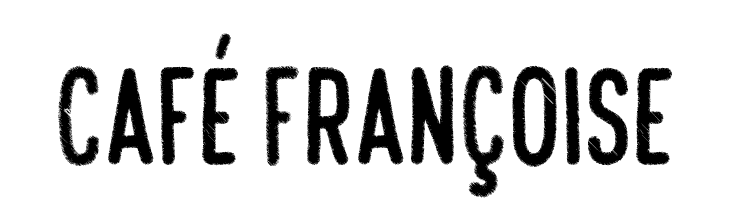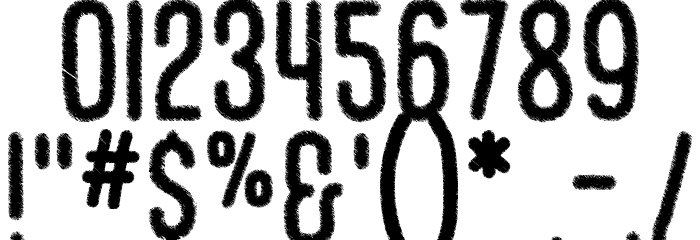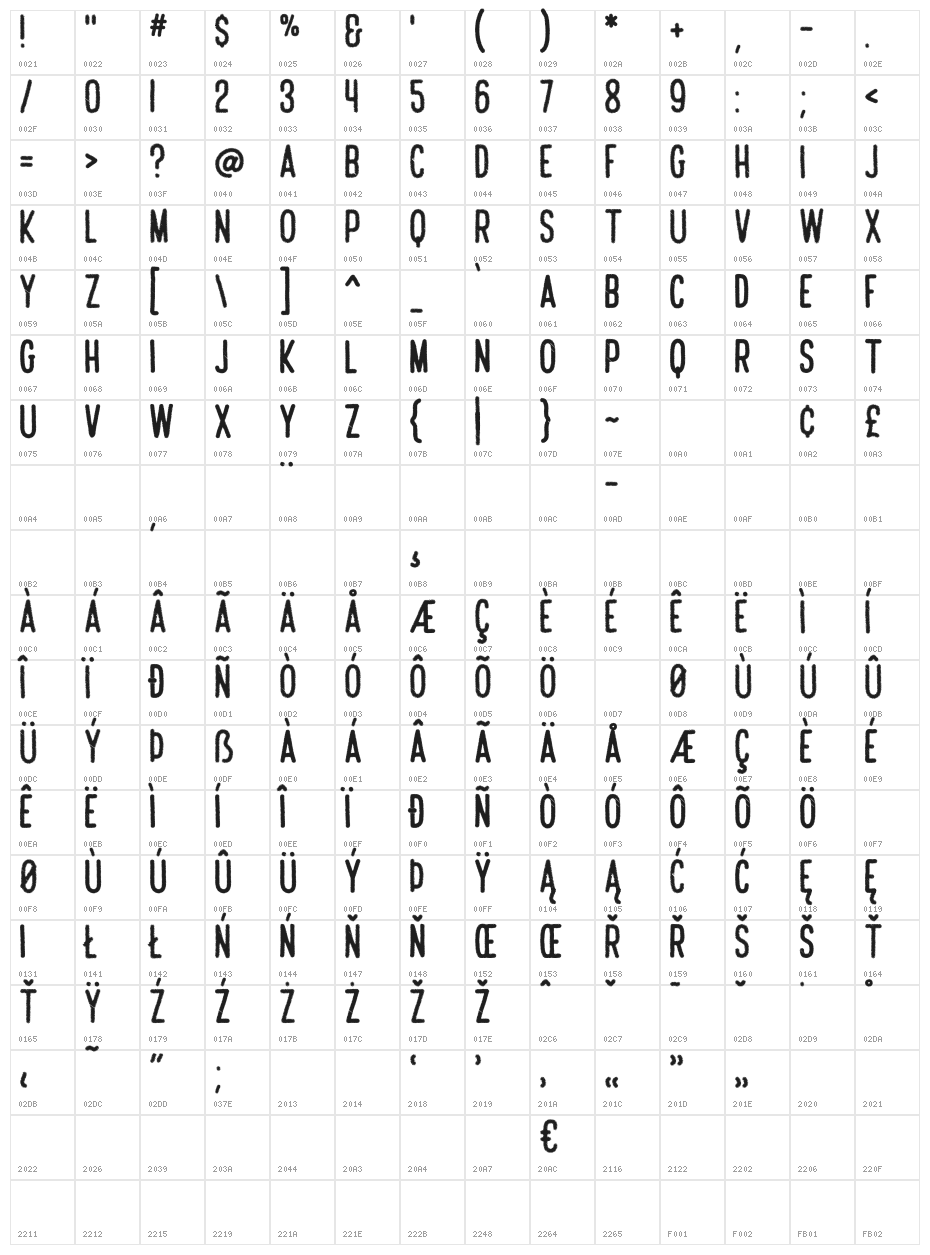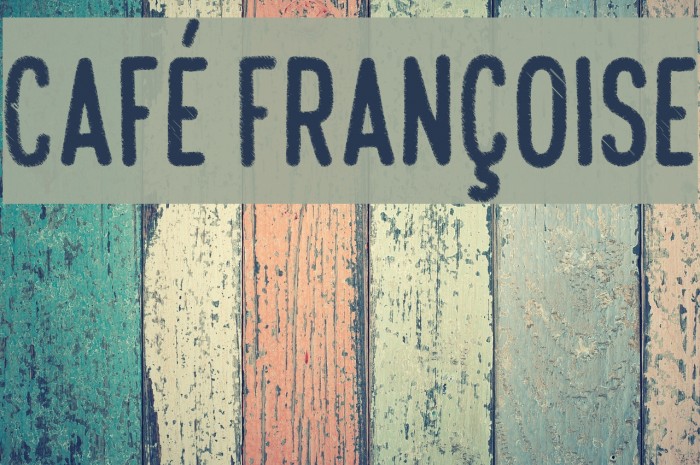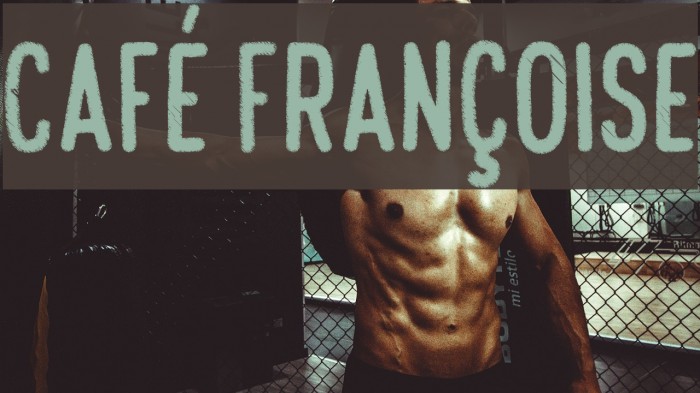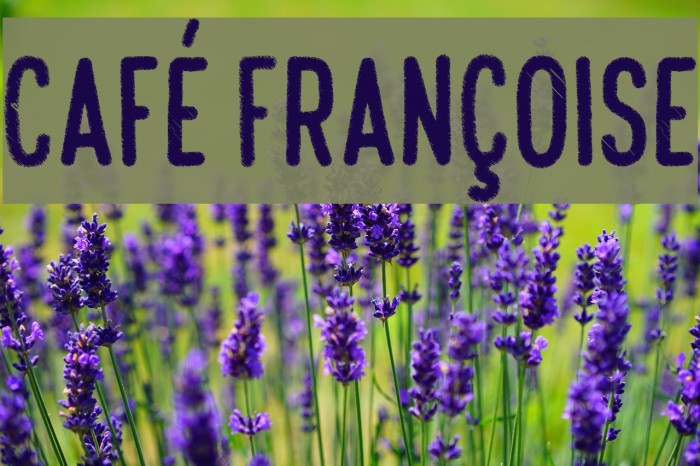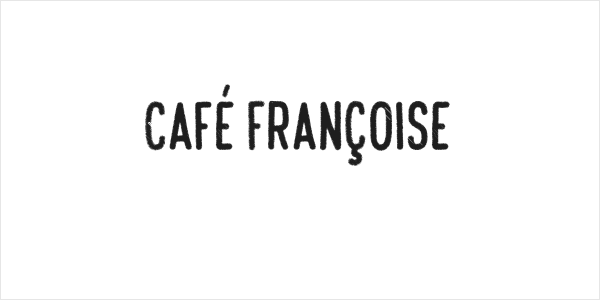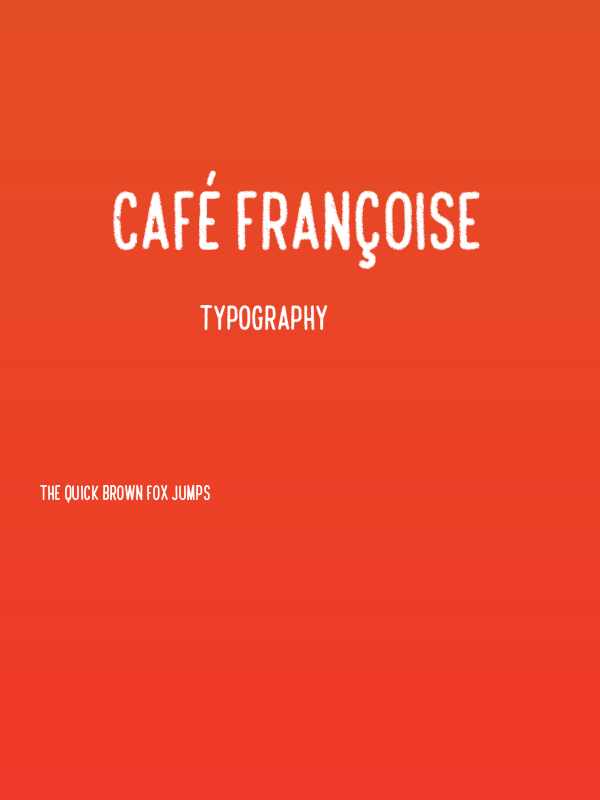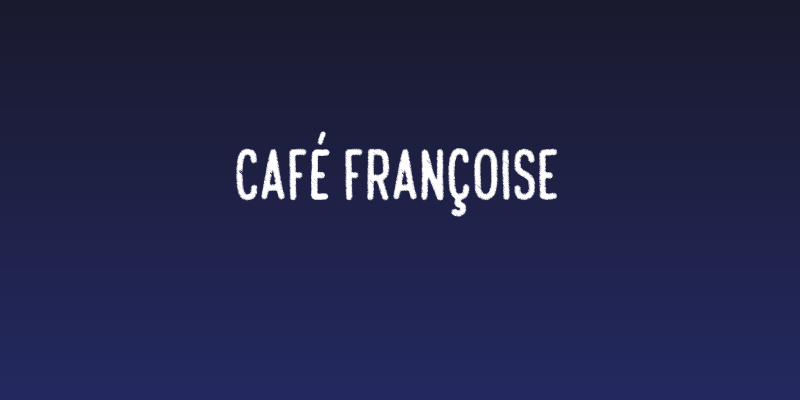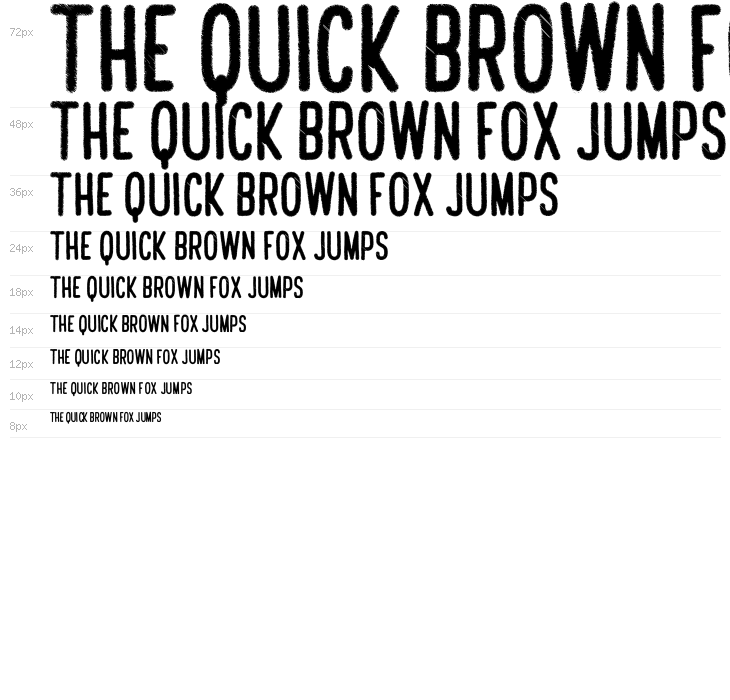
Café Françoise Font
Café Françoise Description
This font features a bold and textured style, reminiscent of hand-drawn chalk or crayon strokes. The characters are uppercase and lowercase letters, along with numbers and a variety of special characters. Each letter has a slightly rough edge, giving it a casual and artistic appearance. The strokes are thick and consistent, providing a strong visual impact. The font's unique texture makes it stand out, suitable for creative and informal designs. Its playful yet robust style can add a dynamic element to any project, making it ideal for eye-catching headlines or artistic displays.
Overall StyleArtistic, Playful
Use CaseHeadlines, Artistic displays, Creative branding
Proposed ProjectsIdeal for posters, artistic projects, children's books, and creative branding.